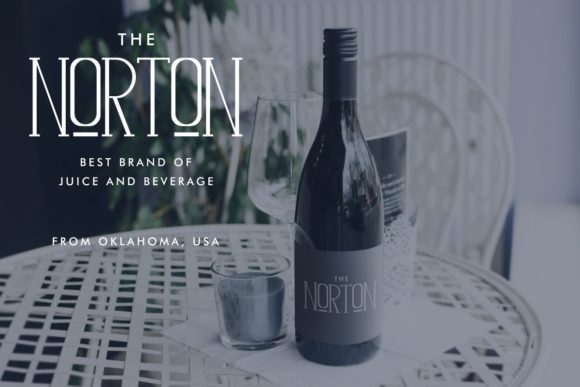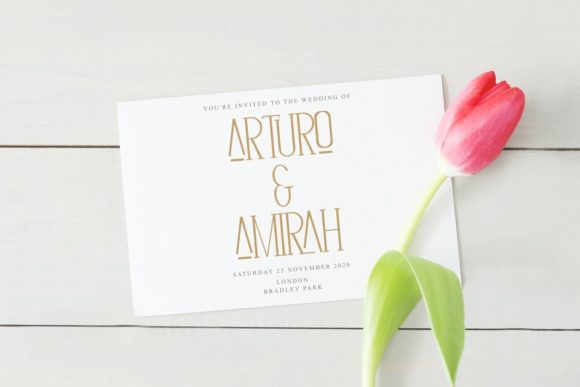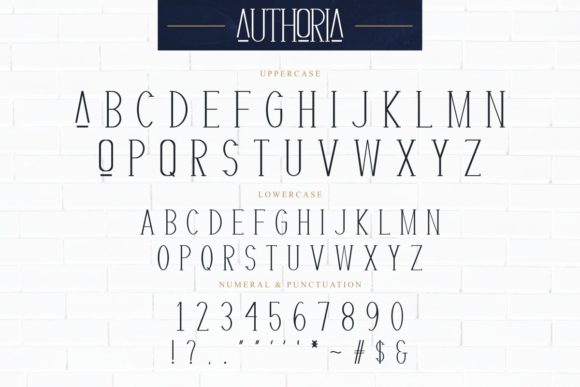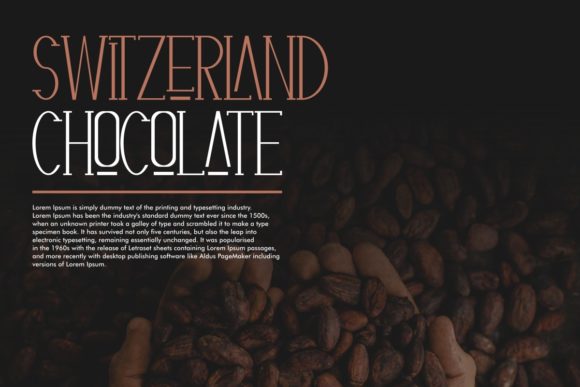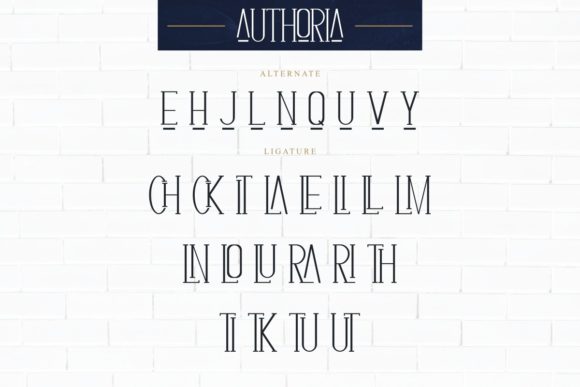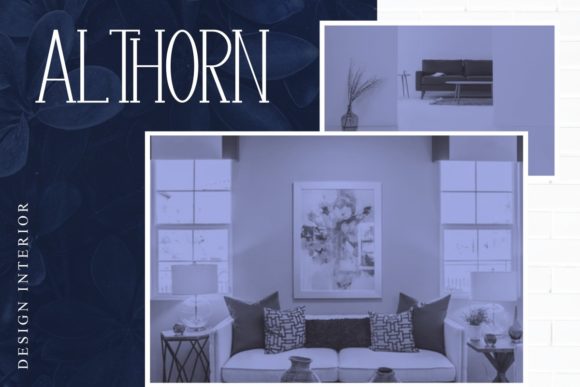
Introducing Authoria Font: Elevate Your Designs with Elegance and Sophistication
In the world of typography, a well-chosen font can make all the difference in elevating your design to the next level. For designers and crafters looking for a unique and versatile font, Authoria Font is an excellent choice. This minimal and tall serif font is designed to add a touch of elegance and sophistication to a wide range of projects, from editorial designs to digital media.
What Makes Authoria Font Stand Out?
Authoria Font boasts a distinctive, minimalist design that exudes refinement and poise. Its tall serif structure gives it a classic and timeless feel, making it perfect for designs that require a sense of tradition and heritage. However, its clean and simple lines also ensure that it remains highly legible, even at smaller font sizes.
One of the key features that sets Authoria Font apart is its incredible versatility. Whether you’re working on a branding project, a website design, or a print publication, this font can easily be matched to an incredibly large set of projects. Its neutral yet sophisticated design makes it an excellent choice for a wide range of applications, from fashion and lifestyle to technology and finance.
PUA Encoding for Easy Access to Glyphs and Swashes
Another significant advantage of Authoria Font is that it is PUA (Private Use Area) encoded. This means that you can access all glyphs and swashes with ease, giving you greater creative control over your designs. With PUA encoding, you can effortlessly navigate through the font’s extensive character set, including alternative letters, ligatures, and decorative elements.
This feature is particularly useful for designers who want to add a personal touch to their work. With Authoria Font, you can experiment with different glyph combinations to create unique and eye-catching designs that reflect your brand’s personality.
Use Cases for Authoria Font
So, what can you use Authoria Font for? The possibilities are endless! Here are a few ideas to get you started:
- Branding and Logo Design: Use Authoria Font to create a sophisticated and memorable brand identity that stands out from the competition.
- Website Design: Add a touch of elegance to your website with Authoria Font, perfect for headers, titles, and other display text.
- Print Publications: Use Authoria Font in your print publications, such as magazines, newspapers, and books, to add a touch of sophistication and refinement.
- Digital Media: Authoria Font is also perfect for digital media, including social media graphics, presentations, and video titles.
Tips for Using Authoria Font Effectively
To get the most out of Authoria Font, here are a few tips to keep in mind:
- Experiment with font sizes: Authoria Font looks great at a range of font sizes, from large display text to smaller body text.
- Play with glyph combinations: Take advantage of the font’s PUA encoding to experiment with different glyph combinations and create unique designs.
- Pair with other fonts: Authoria Font pairs well with a range of other fonts, so don’t be afraid to experiment with different font combinations.
In conclusion, Authoria Font is an exceptional choice for designers and crafters looking for a versatile and elegant serif font. Its minimalist design, PUA encoding, and wide range of applications make it an excellent addition to any design project. Whether you’re working on a branding project, website design, or print publication, Authoria Font is sure to elevate your designs to the next level.